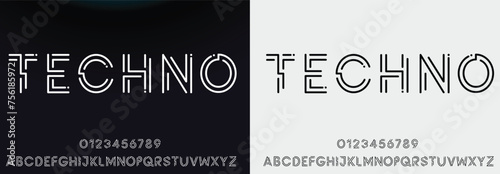
Futurism style alphabet. Thin segment line font, minimalist type for modern futuristic logo, elegant monogram, digital device and hud graphic. Minimal style letters, vector typography design.